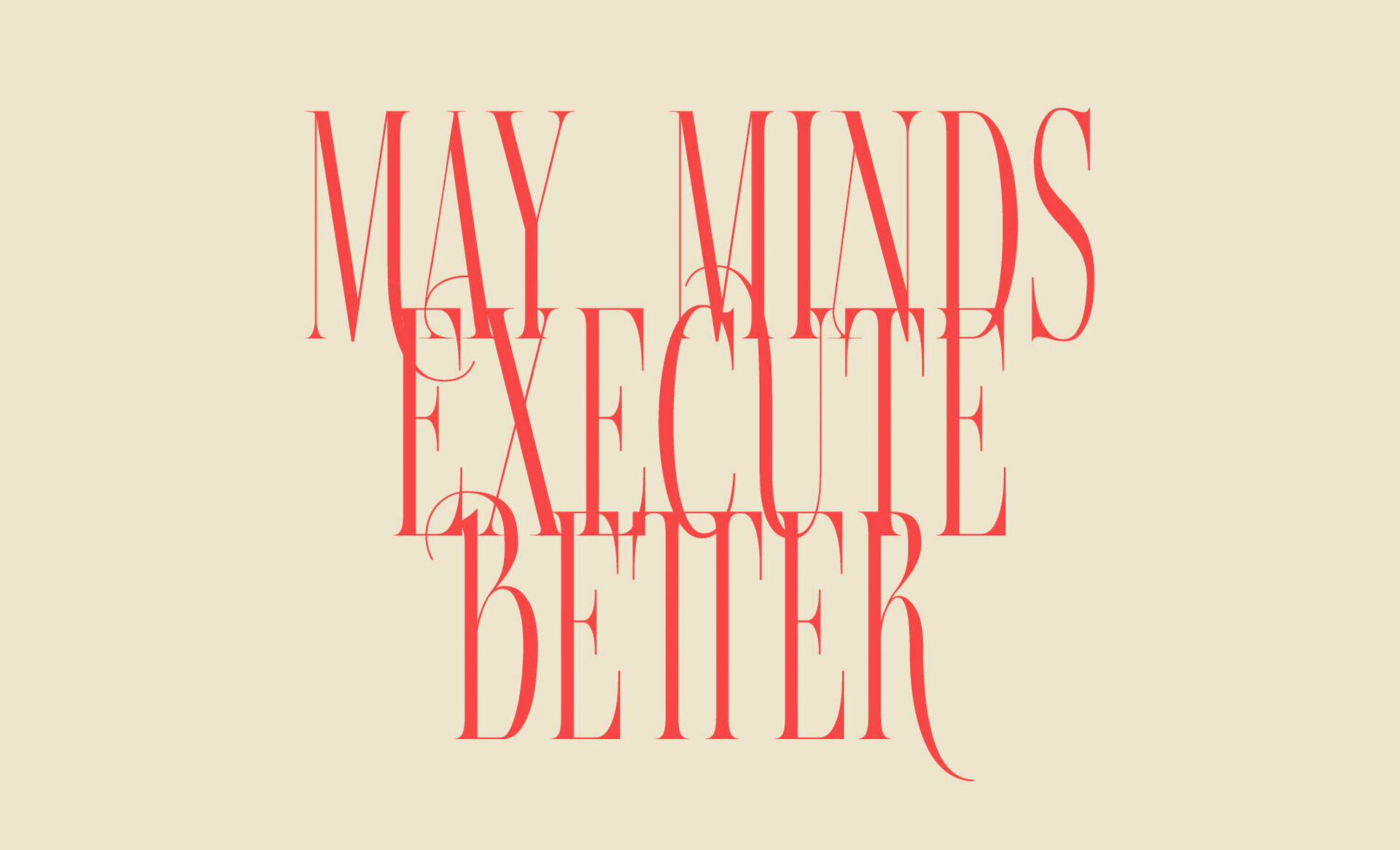
Zt Qiske—the perfect font for luxury goods, fashion, magazine titles, headlines, logo design, branding, package design, posters, social media, visual identity, and more. Qiske has a strong, metallic elegance, a confidence bordering on arrogance, a beauty backed by fierce intellect. Competence. Classiness that owns. The ligatures suggest an exclusionary intimacy that makes the viewer desire all the more, and the flowing descenders and tails say look at what you can’t have—intoxicated and intrigued, the audience will be reeled in and cinched tight. Zt Quiske does it.